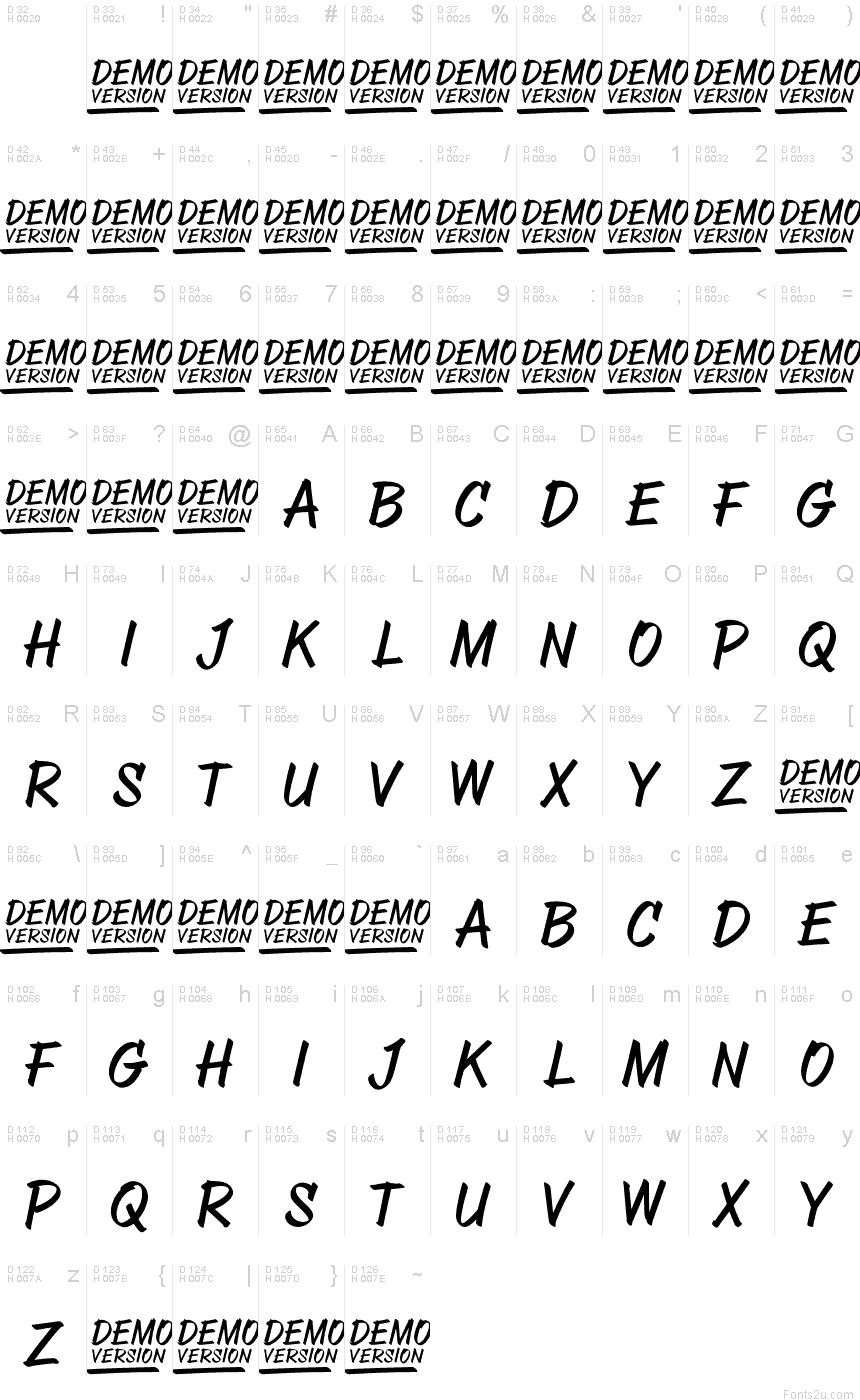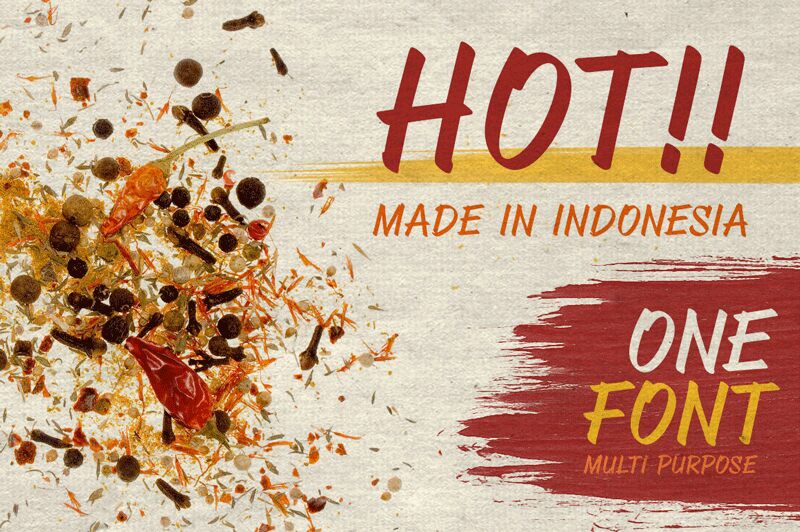
ABOVEADEMOVERSION
Abovea have been designed by M Fairuzulhaq, process design derived by freehand scratches with sans sherif style and slightly italic. What are special of the Abovea font is the anatomy font (Terminal, stem, stroke, bar, tail, bowl, counter, axis, spur, soulder, cross, etc) formed by unrepeated stucture based on the original freehand scratches, so that this font looks more expressive, natural, rhythmic, and have a soul. Except for the Diacritics letters like Agrave, Edieresis, Ntilde, etc still using the basic letters A, E, N, etc. This way just intend to make all the letters looks match and unity. Abovea font is really useful for various purpose and perfect for your typography needs, monitor or printing.
Simple secret to access a long underscore is just typing underscore 2x, or 3x, or 4x, or 5x, then activated the "Discretionary ligatures" (Only use program which support Opentype features like as Adobe illustrator or Adobe Photoshop).